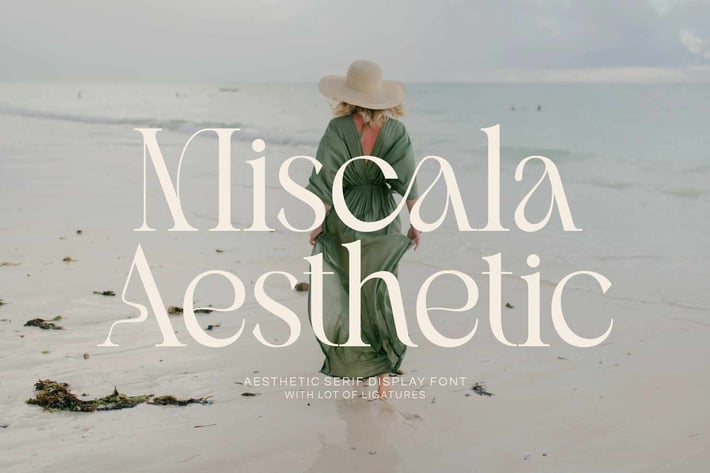
Miscala Aesthetic Modern Font
Miscala Aesthetic modern font is a refined serif typeface that embodies elegance and sophistication. It seamlessly combines a classic design with a modern aesthetic, characterized by pointed terminals and elongated serifs, which lend it a high-fashion appeal with a contemporary touch.
This typeface is an excellent choice for fashion campaigns, editorial designs, luxury branding, and elegant design projects. It is particularly well-suited for logos, invitations, magazines, photography, product packaging, and mockups, especially for projects aiming to evoke an upscale or tropical aesthetic.